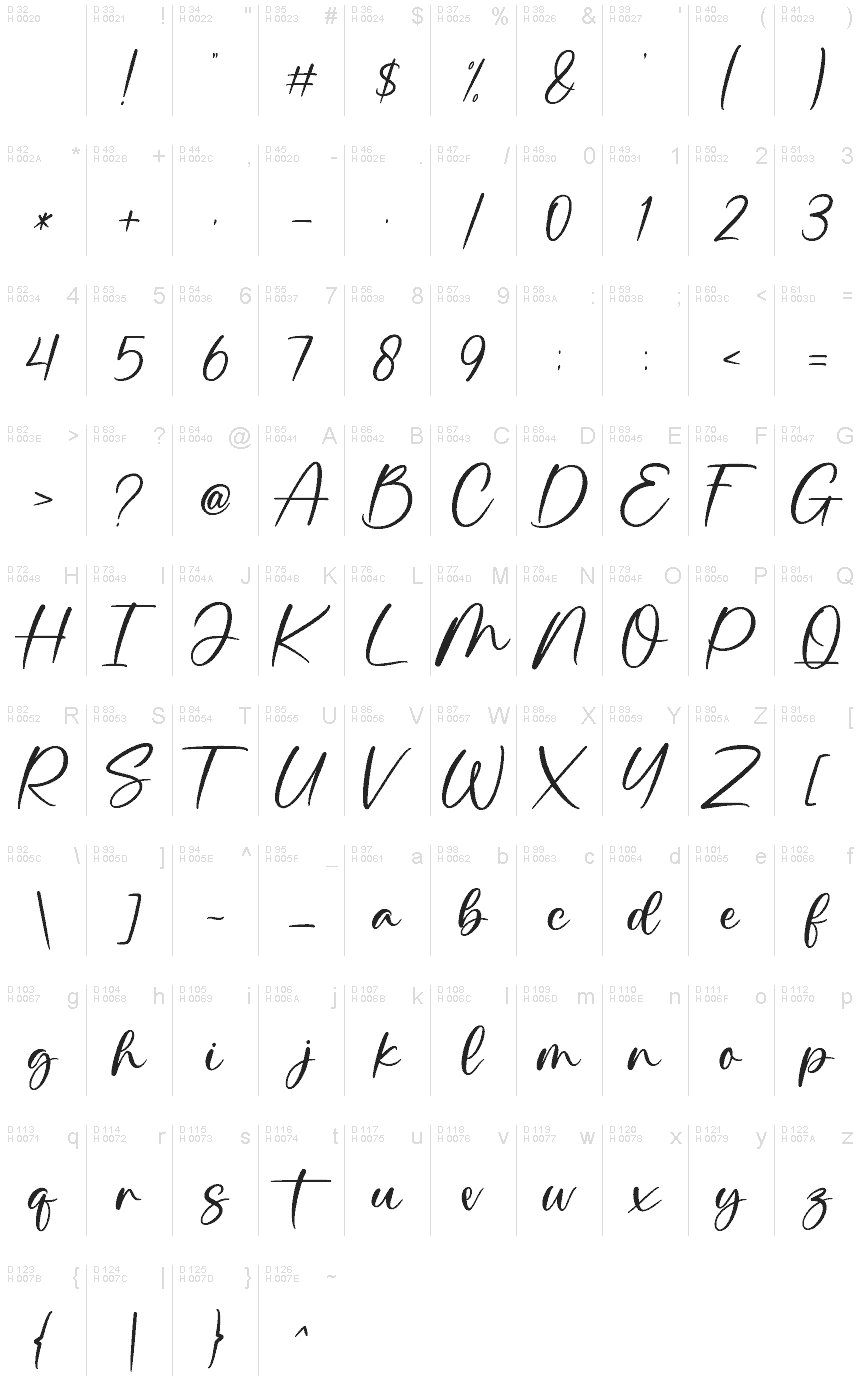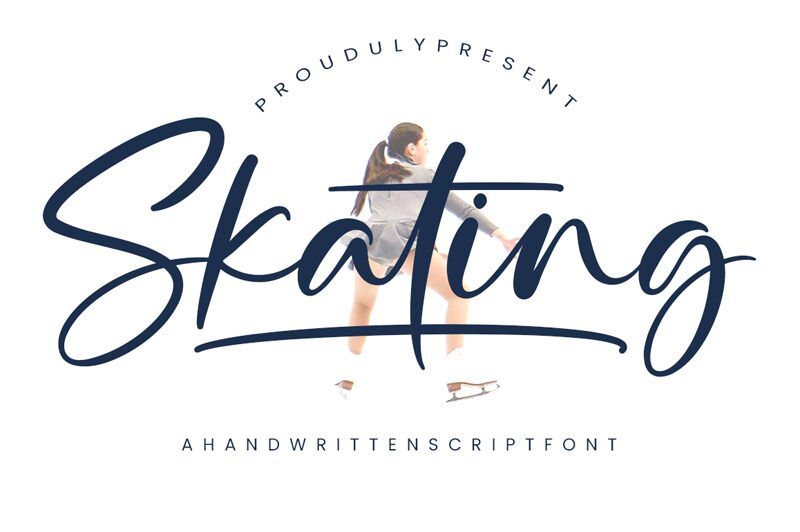
Skating
Introducing Skating, an elegant and playful handwritten script font created by Ramli Setiadi. A delightful display font with a smooth and feminine feel, it contains a series of hand lettered characters with a natural flow. Use this font for your branding projects, online store banners, social media posts and stories, and business cards designs. With an amazing design that suits a variety of applications including business titles, labels and tags, menus, etc., it is the ultimate choice for your print and apparel designs, with the addition of some glitter and gold effects for unique and memorable creations.